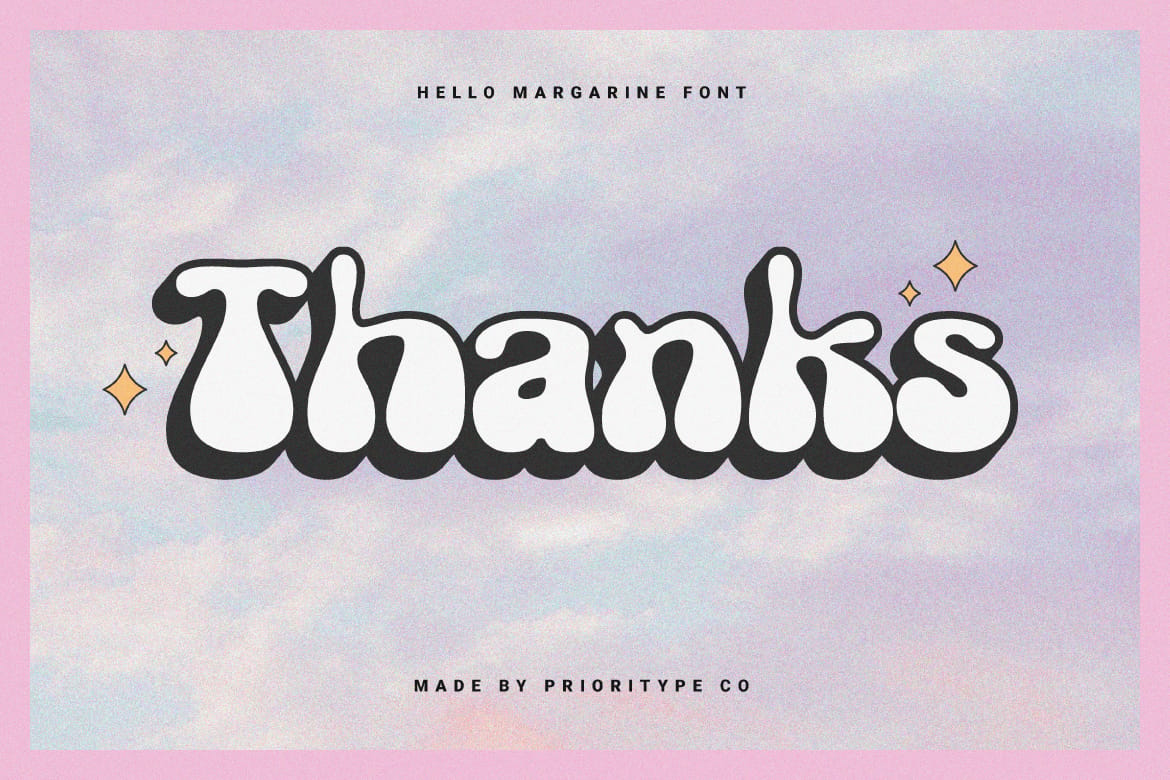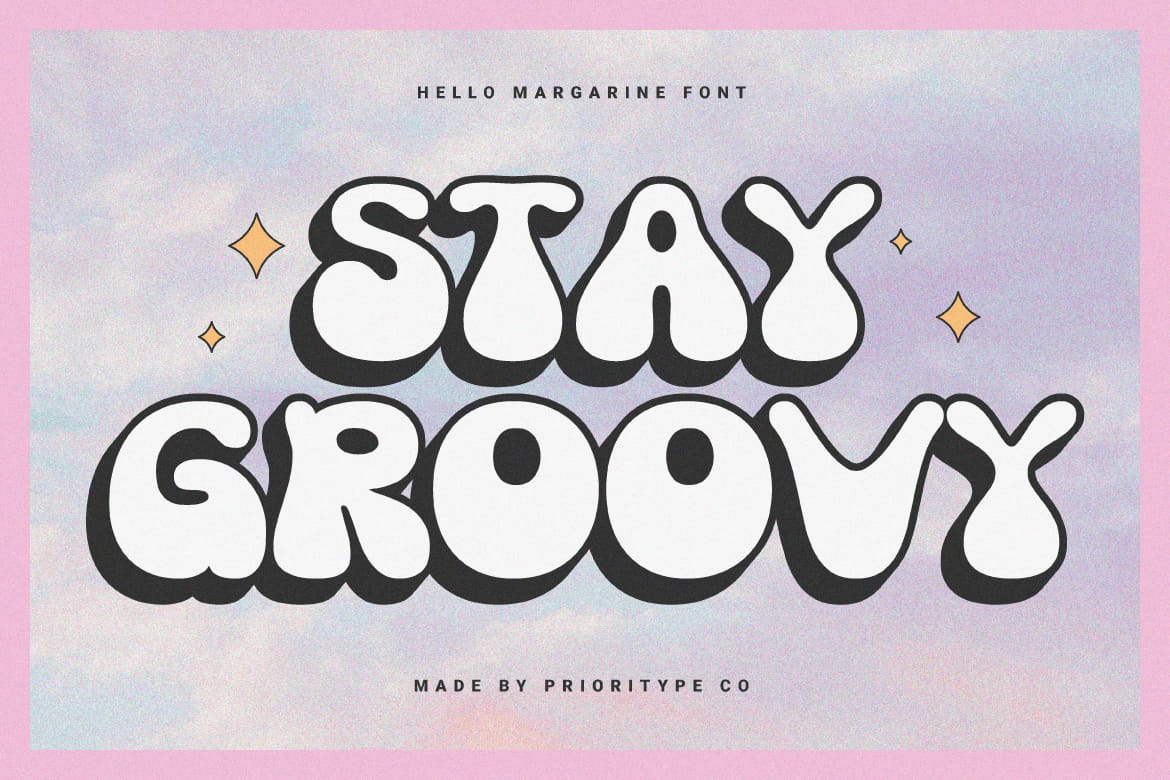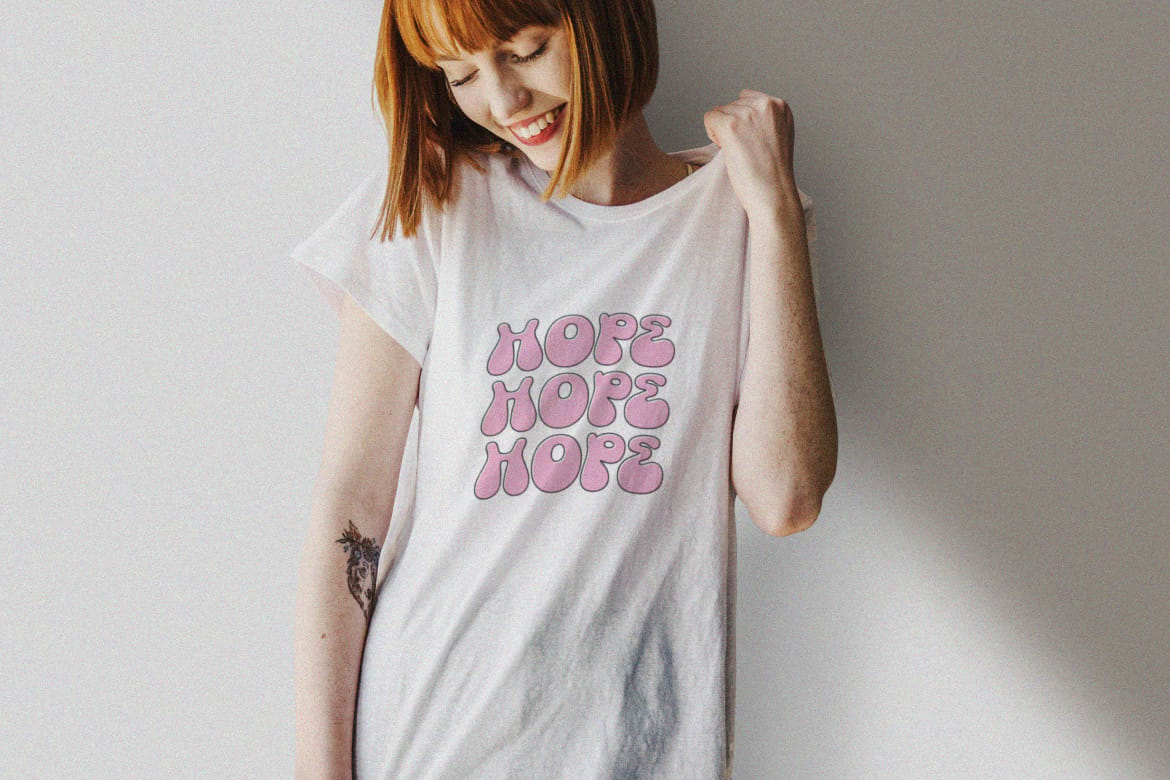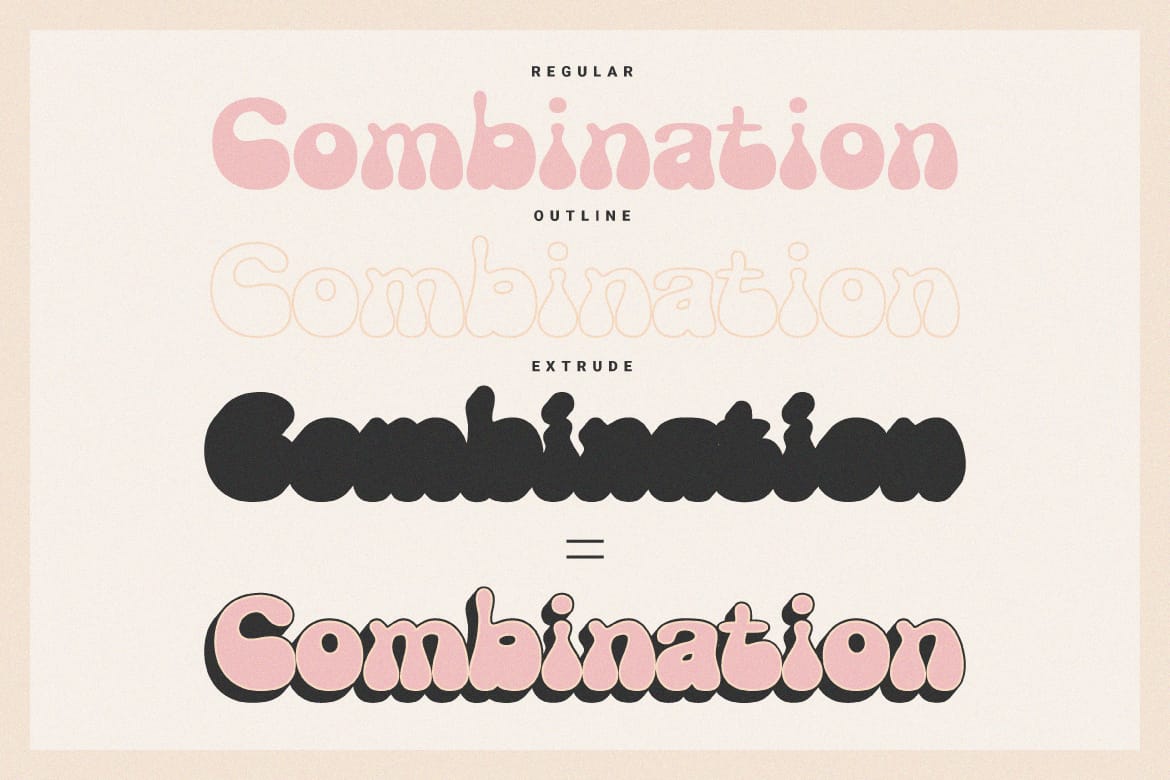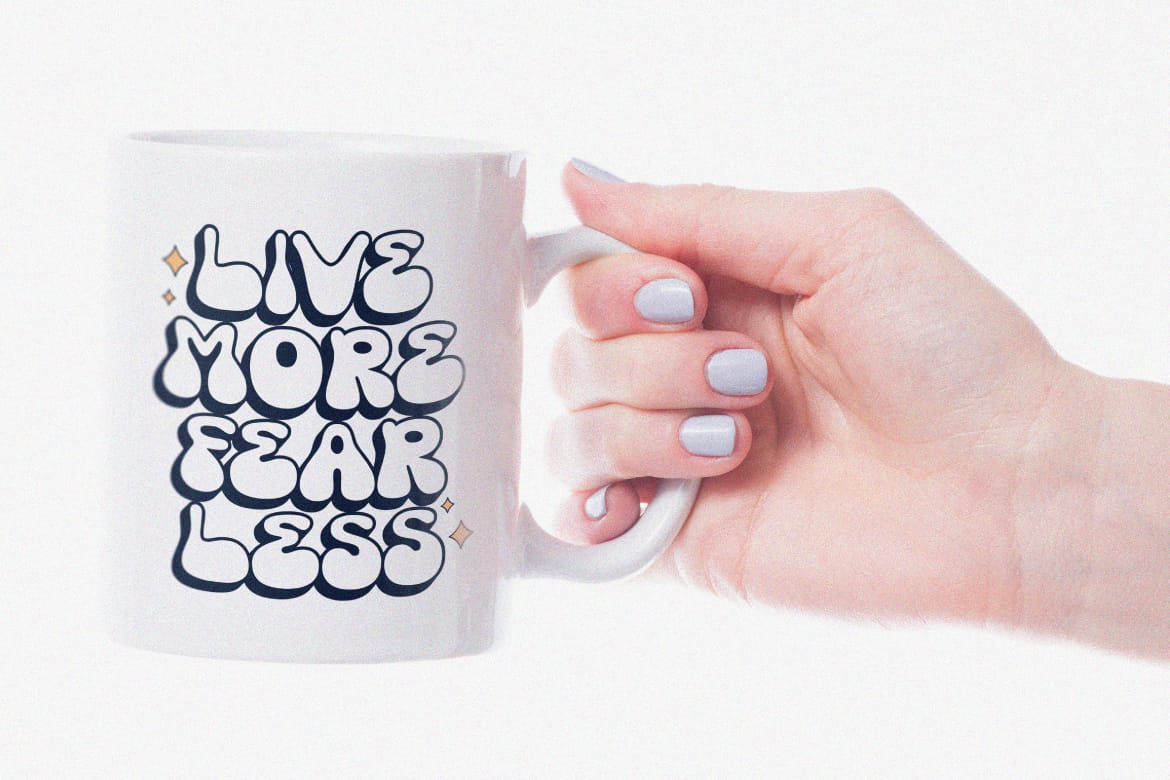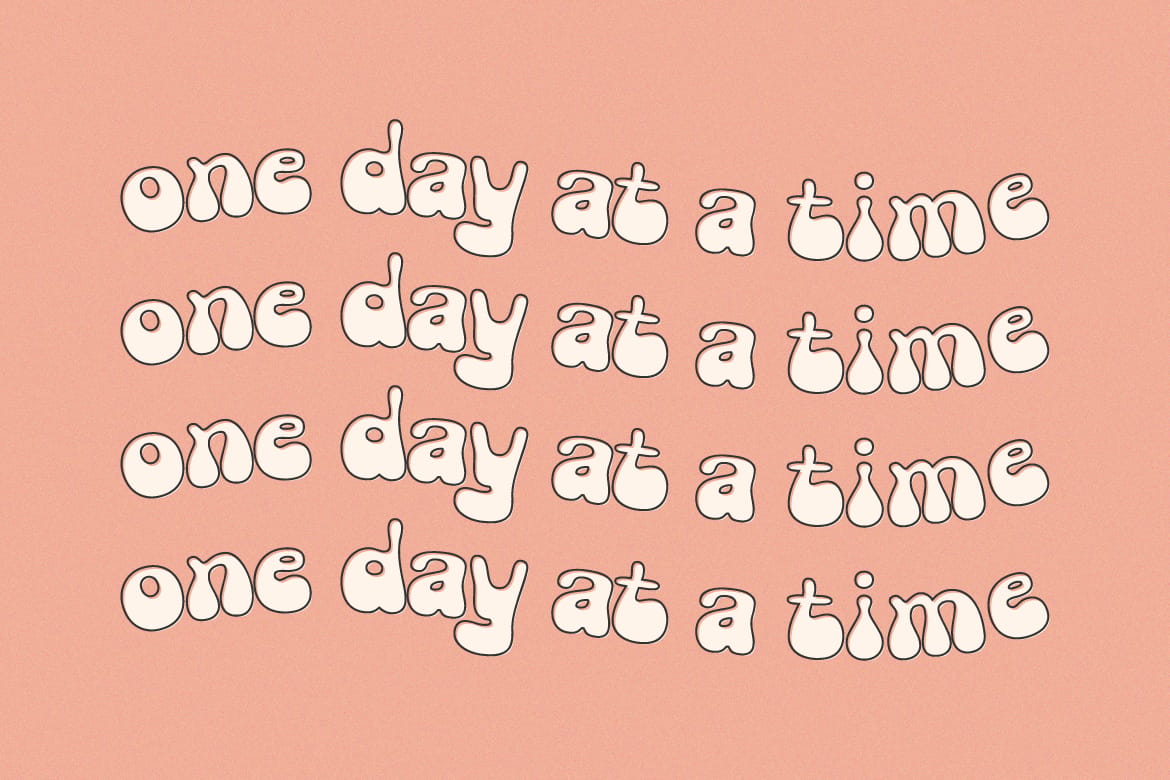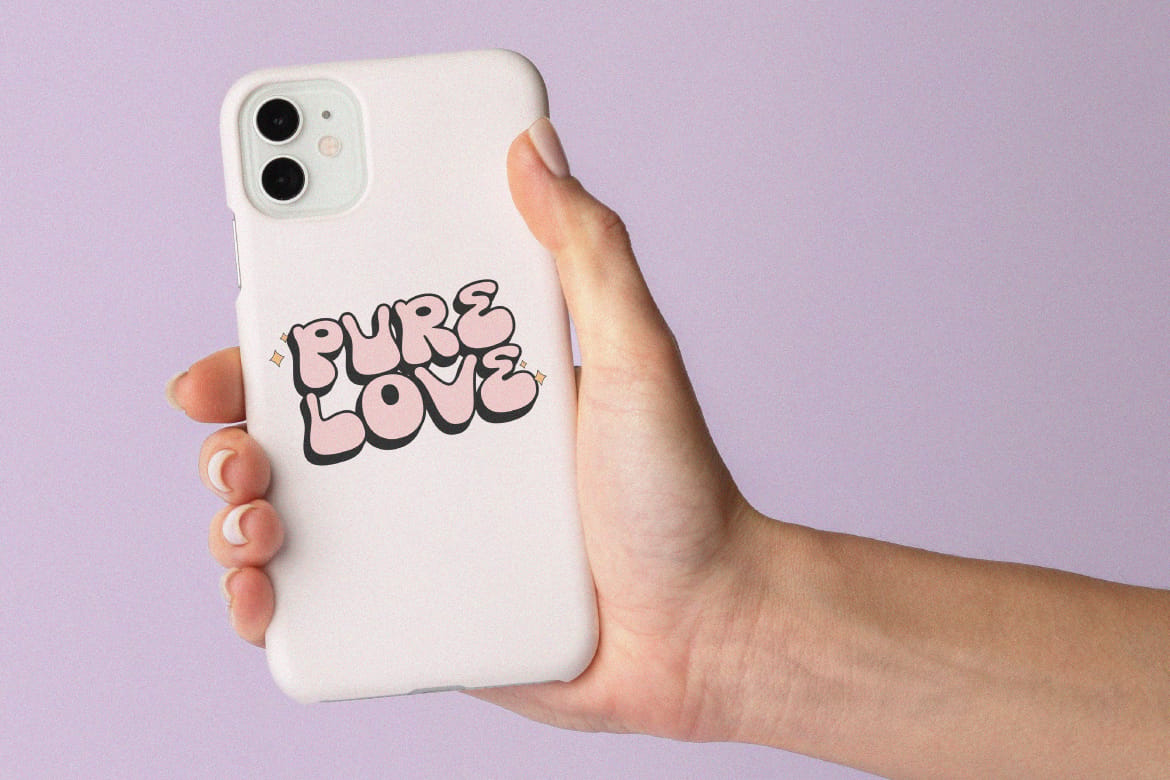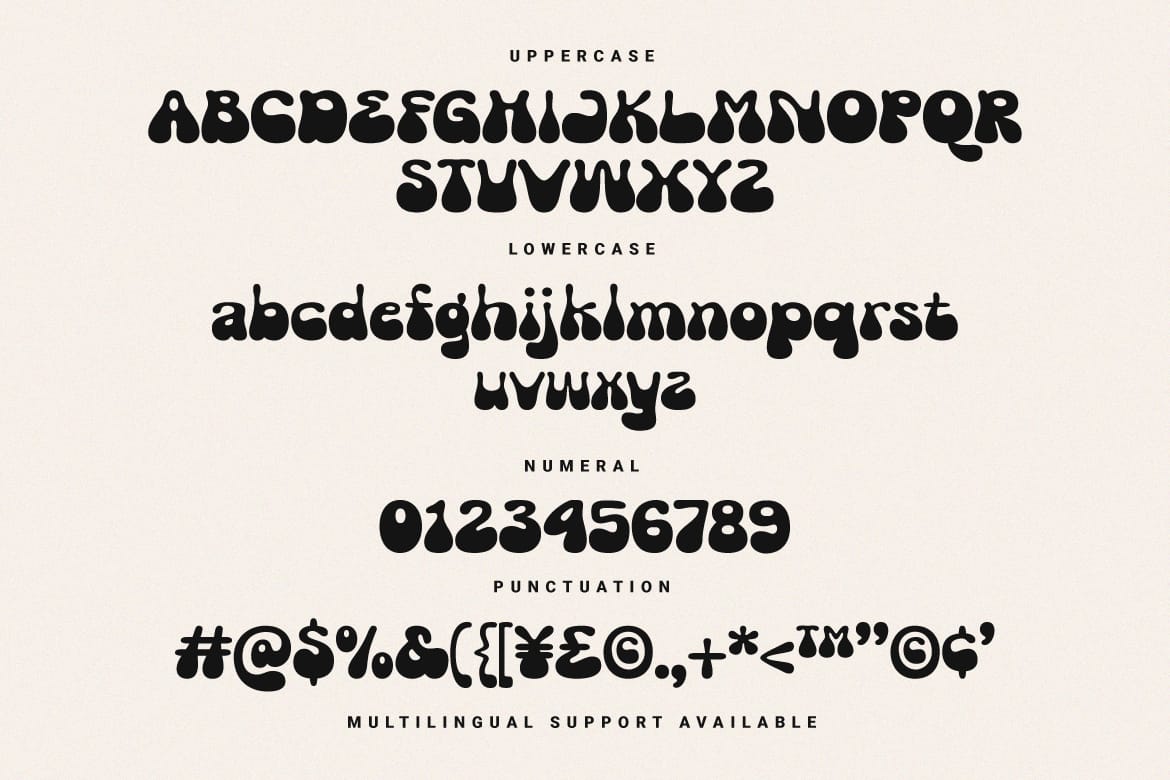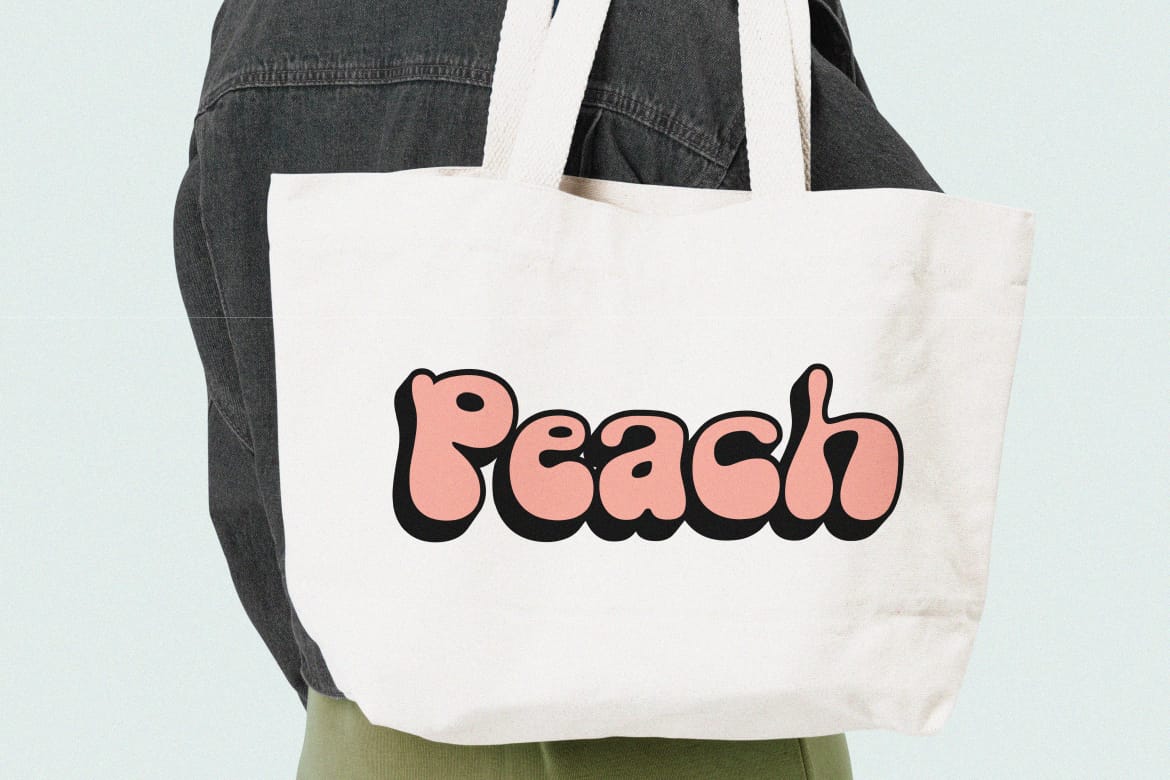
Hello Margarine - Groovy Display Font by Prioritype Co.
Groovy fonts are here again. Yes, "Hello Margarine" is a hand drawn typeface with a bold, funny and fun feel. Comes in 3 styles, namely Regular, Outline and Extrude. When combined, it will be a great visual and practical in use.
Features: Uppercase, Lowercase, Numeral, Punctuation & Multilingual.
Multilingual supported: Afrikaans, Albanian, Basque, Catalan, Danish, Dutch, English, Estonian, Filipino, Finnish, French, Galician, German, Indonesian, Irish, Italian, Luxembourgish, Norwegian Bokmål, Norwegian Nynorsk, Portuguese, Quechua, Romansh, Spanish, Swahili, Swedish, Swiss German, Zulu and more.
- 3 styles: Regular, Outline, Extrude
- Bold, fun hand-drawn groovy look
- Retro, vintage multilingual design